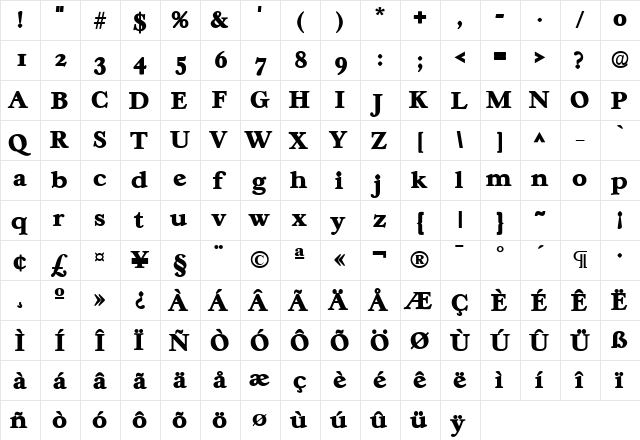
Casablanca Heavy SF Bold
Design Context for Casablanca Heavy SF Typeface
Casablanca Heavy SF offers clean, dependable letterforms without strong stylistic allegiance, making it a practical choice for designers who need flexibility. Its bold stroke weight gives it real presence on the page.